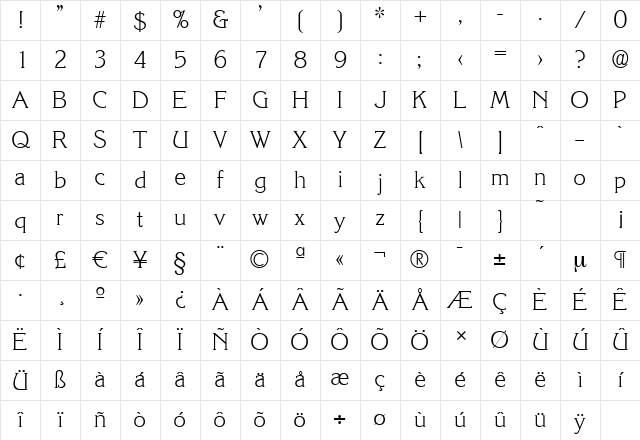
KorinthSerial-Xlight Regular
Design Context for KorinthSerial-Xlight
KorinthSerial-Xlight is a composed and adaptable typeface that performs quietly and consistently across a wide range of design contexts. Its slender proportions lend an understated elegance to any composition.
Pro Tip: Use KorinthSerial-Xlight in both headline and body roles to test its range before committing to a single application.